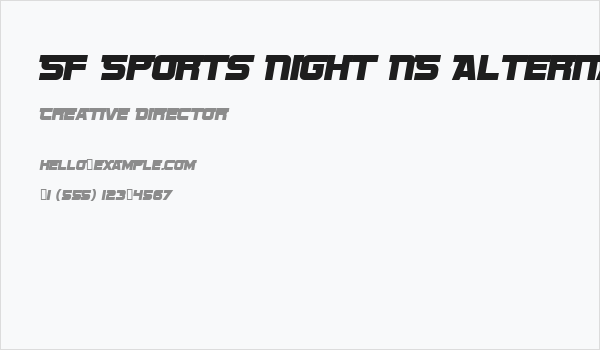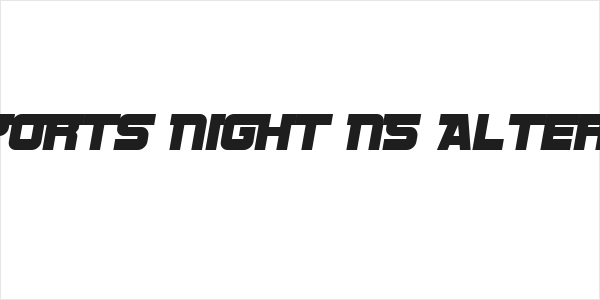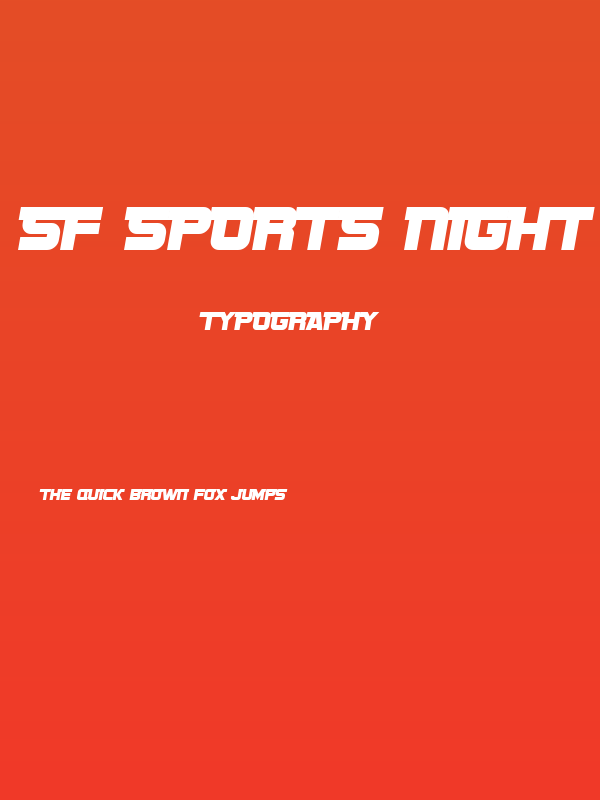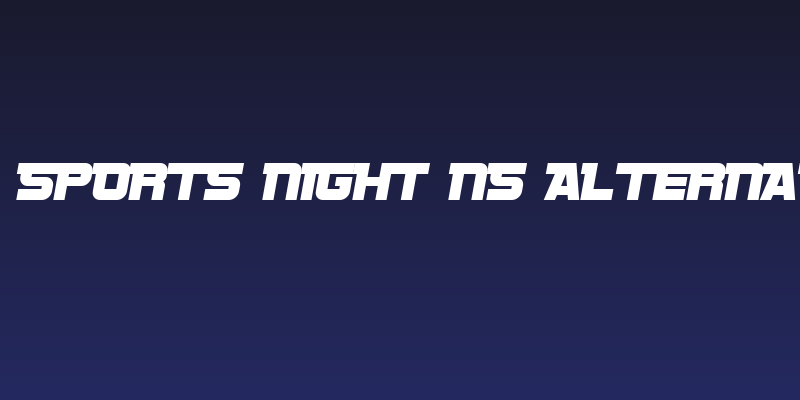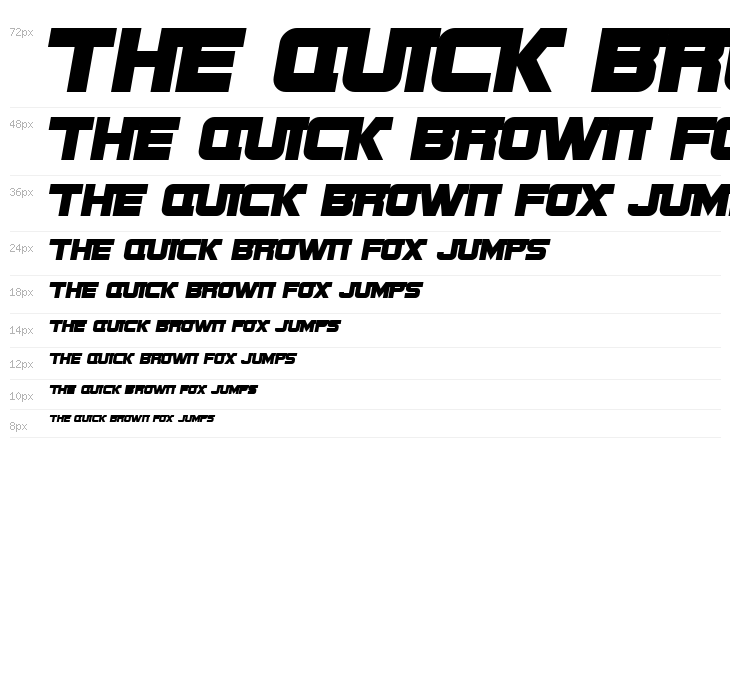
SF Sports Night NS Alternate Font
SF Sports Night NS Alternate Description
This font features a bold, angular design with a strong emphasis on geometric shapes and sharp edges. The characters are slightly slanted, giving a sense of motion and dynamism. The uppercase letters are particularly striking, with a futuristic and sporty aesthetic. The numbers and special characters maintain the same boldness and angularity, ensuring consistency across all glyphs. The overall design is modern and eye-catching, suitable for projects that require a strong visual impact.
| Proposed Projects | Ideal for sports branding, event posters, video game titles, and dynamic advertisements. |